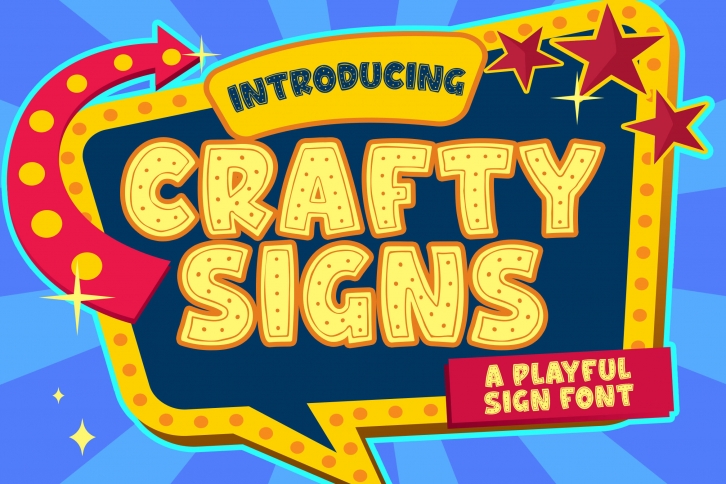
Crafty Signs is a bold and playful display font, perfect for crafty projects that need attractive and fun typography! Made with a great level of aesthetics, this font is suitable for any creative project you have coming up!